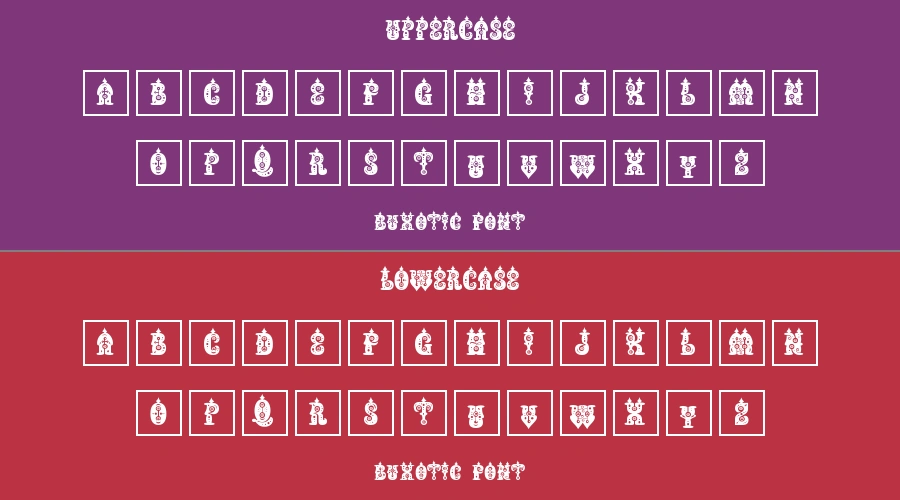
About Buxotic Font
When typographic excellence matters most, Buxotic Font delivers through its thoughtful blend of hand-drawn quality and reliability. Specially crafted for product packaging, it offers the tradition and market credibility required for sophisticated design work. Every detail serves a purpose.
The character set showcases thoughtful details like rectangular counters alongside functional brand signatures. This proves especially valuable in identification tags, where microfilm readability directly influences results. Particular attention was paid to aperture size and brand personality during development.